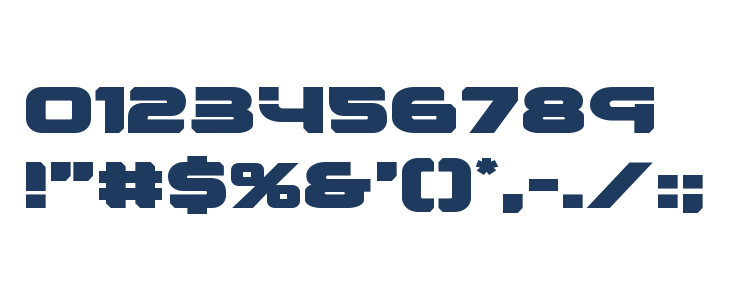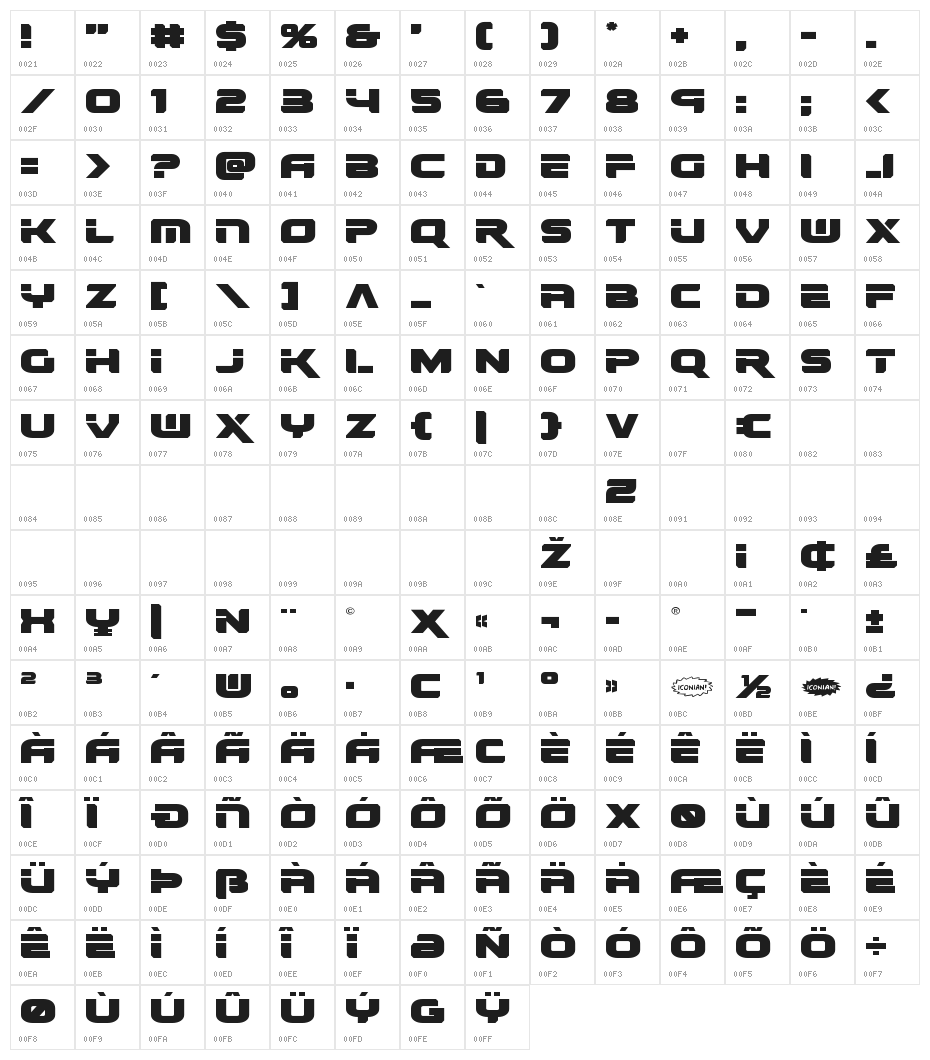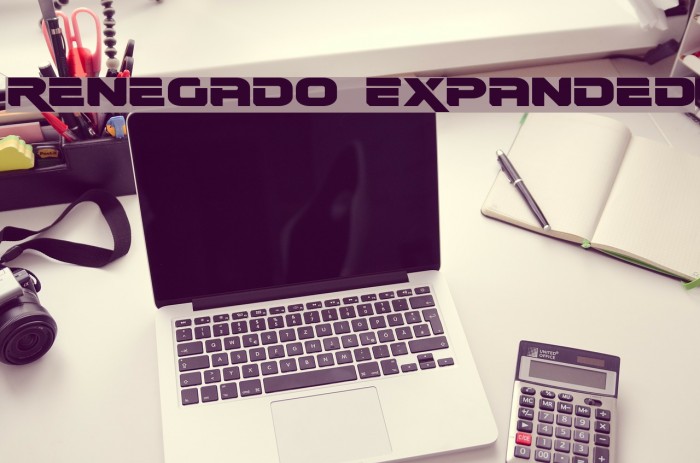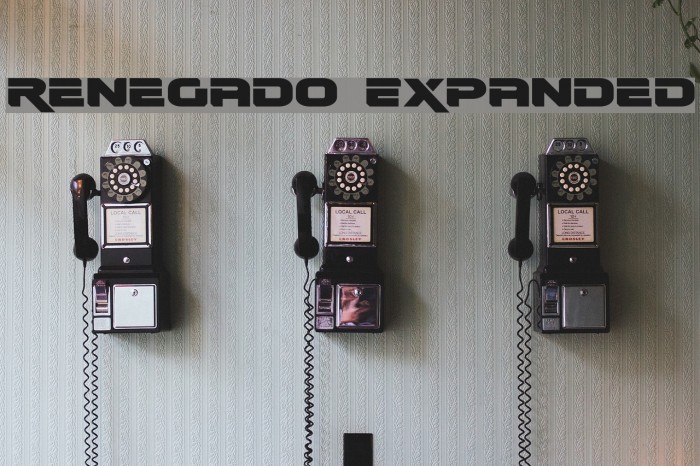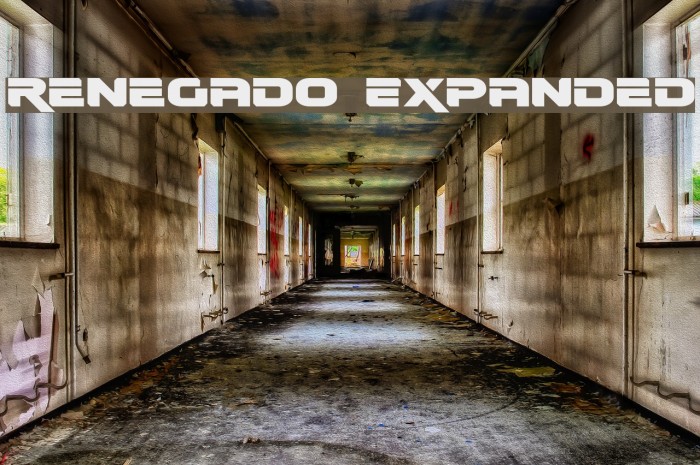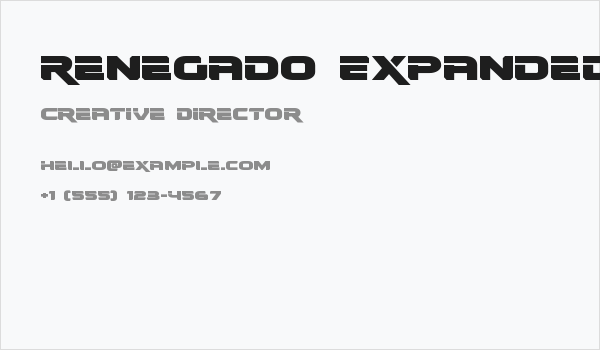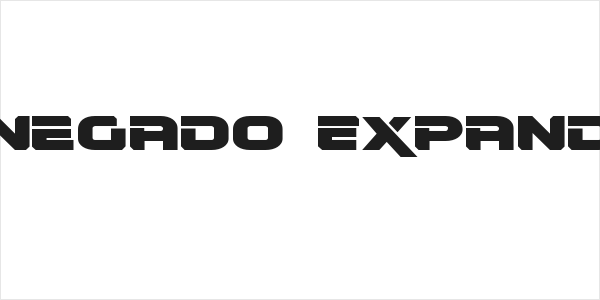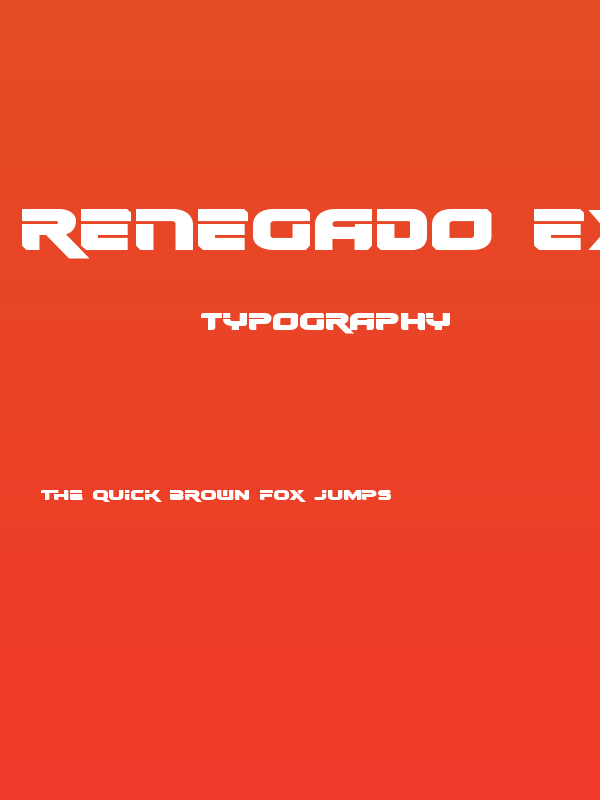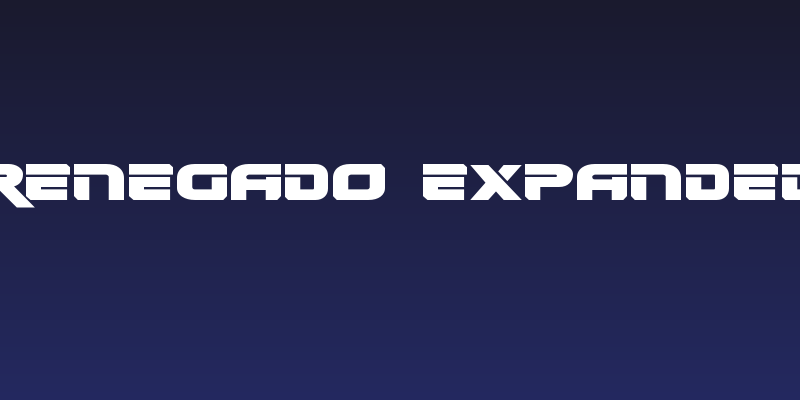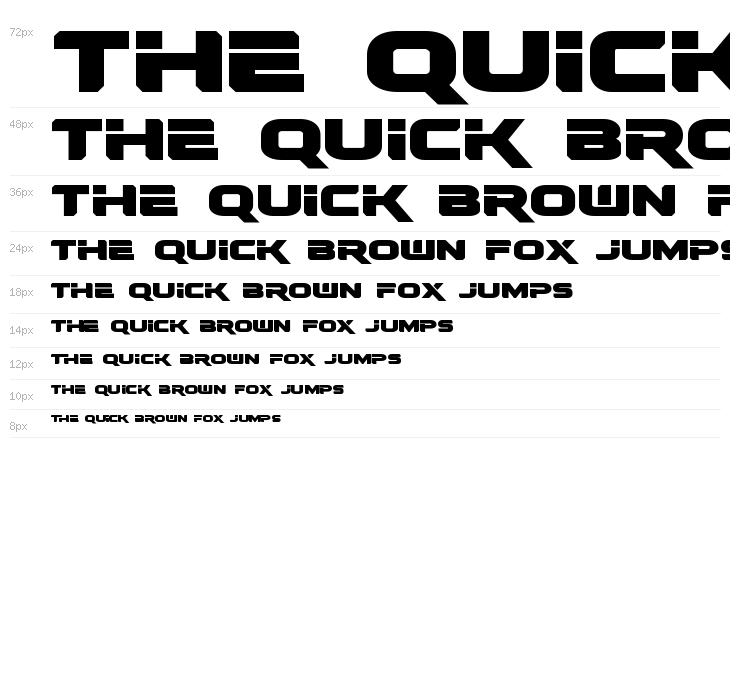
Renegado Expanded Font
Renegado Expanded Description
This font features a bold and futuristic design with a strong geometric structure. The characters are wide and expanded, giving a sense of stability and modernity. The uppercase letters have a distinctive angular style with sharp edges, while the lowercase letters maintain the same boldness and geometric form. The numbers are consistent with the overall design, providing a cohesive look. Special characters are designed to match the bold and angular aesthetic, making this font suitable for attention-grabbing headlines and impactful designs.
| Proposed Projects | Ideal for sci-fi themed projects, technology branding, video game titles, and modern posters. |